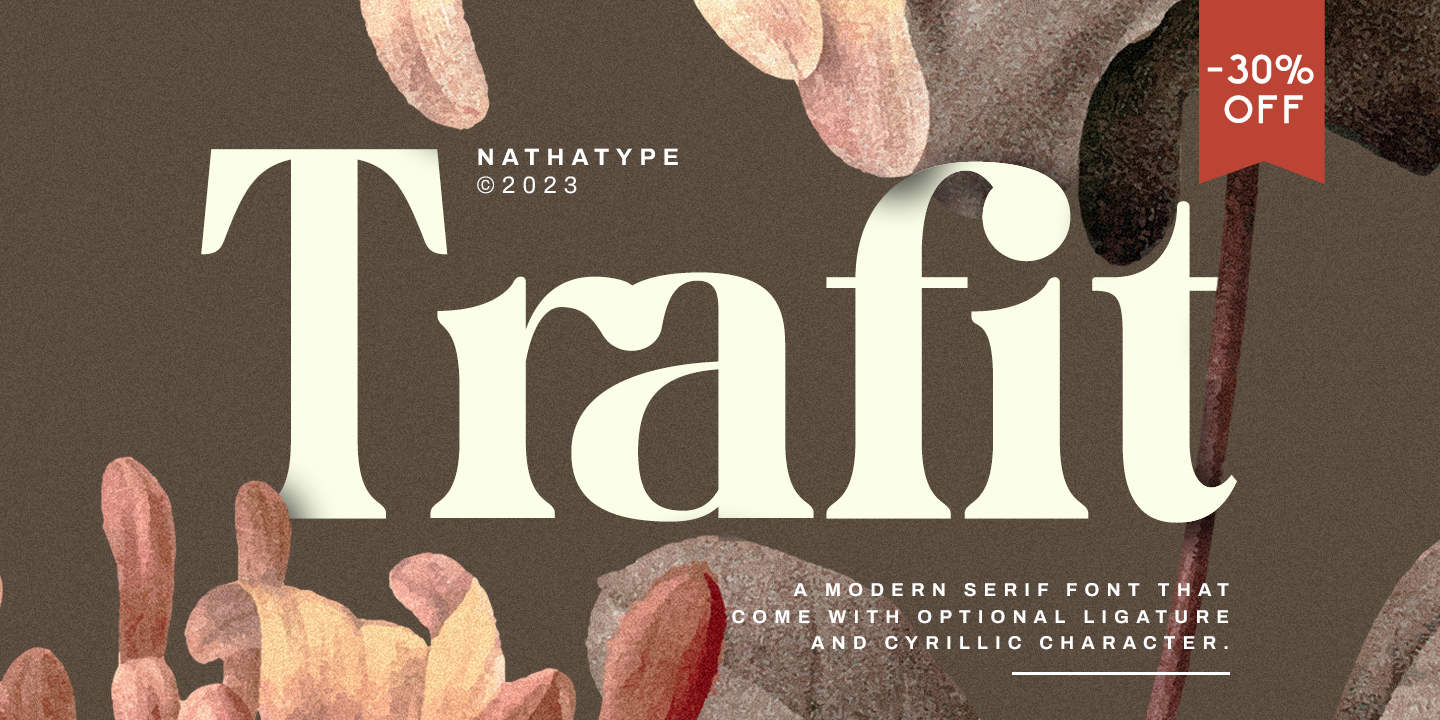
Trafit Font is perfect for transportation company branding, logistics firm logos, delivery service packaging, urban planning presentations, traffic management systems, automotive industry materials, shipping documentation, modern signage designs, industrial product catalogs, and dynamic movement-based marketing campaigns.
What makes Trafit Font so exciting is its exceptional ability to convey speed, efficiency, and directional flow through carefully crafted letterforms that seem to move with purposeful momentum. This font captures the essence of modern transportation and seamless connectivity, featuring streamlined characters that embody the spirit of progress and forward motion. The dynamic letter shapes create an atmosphere of reliability and precision, making every word feel like it's moving toward its destination with confidence and clarity.
The Trafit Font family includes Light, Regular, Medium, Bold, and Black weights, along with italic and condensed variations. Each style maintains the font's distinctive movement-oriented character while offering versatility for different design requirements, from subtle informational text to bold directional headlines that guide and inspire action.
This innovative typeface brings contemporary efficiency aesthetics to modern design projects. The Trafit Font Free Download provides designers with a powerful tool to create compelling brand identities that communicate speed, reliability, and professional expertise. Whether you're developing transportation service branding, designing logistics company materials, or creating urban infrastructure presentations, this font delivers exceptional visual impact and functional clarity.
The precisely engineered letterforms in Trafit Font feature flowing angles and streamlined curves that mirror the smooth operation of modern transportation systems. Each character has been meticulously designed to maintain excellent readability while expressing dynamic movement and directional energy. The font's clean, professional appearance makes it ideal for both corporate communications and public signage applications.
Industry professionals value how Trafit Font effectively communicates efficiency, progress, and trustworthiness while maintaining a modern, approachable aesthetic. The comprehensive character set includes directional symbols, transportation icons, and multi-language support, ensuring global applicability while preserving its distinctive movement-based identity. This makes it an essential resource for companies in logistics, transportation, urban planning, and any industry focused on connecting people, places, and possibilities through innovative design solutions.